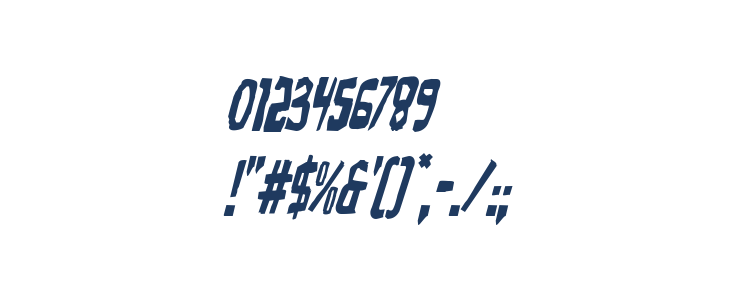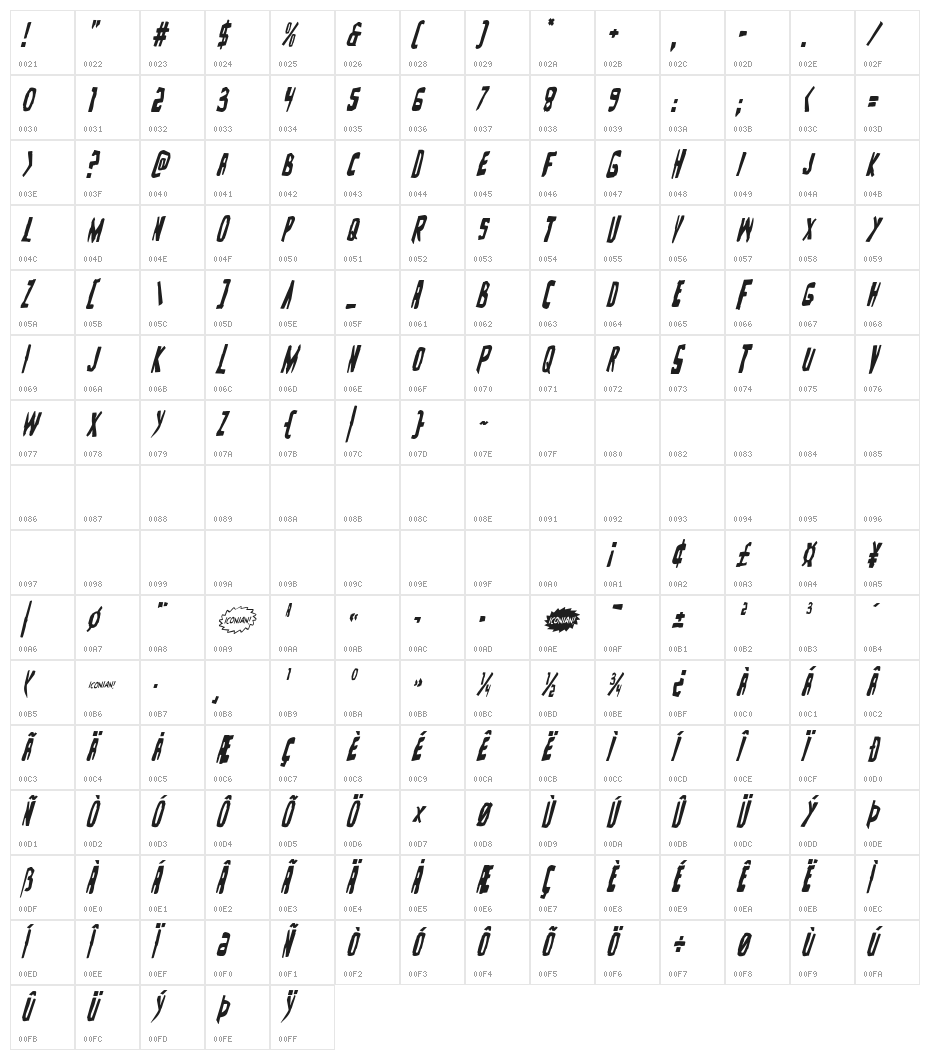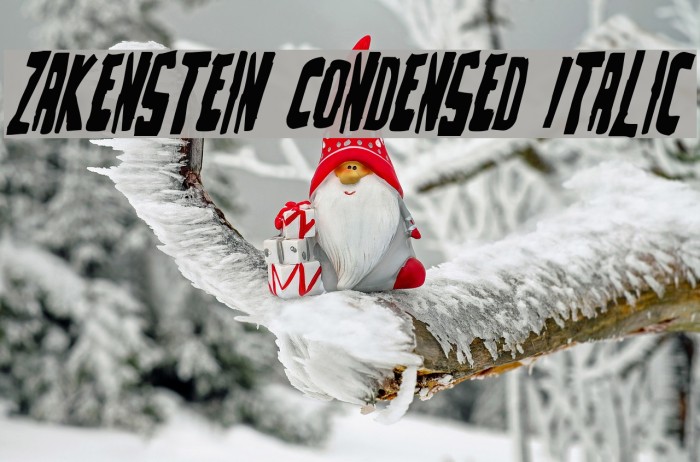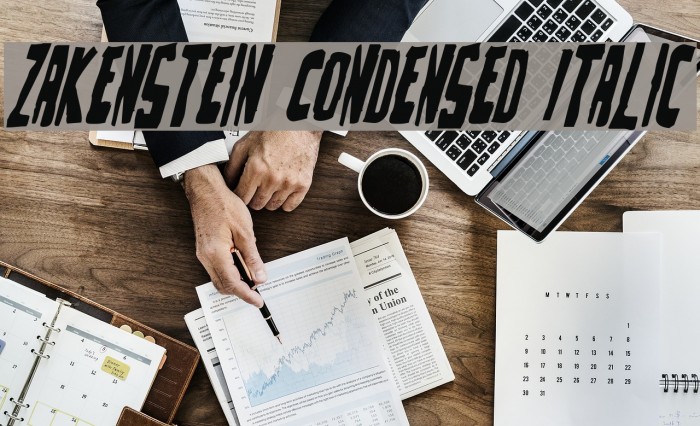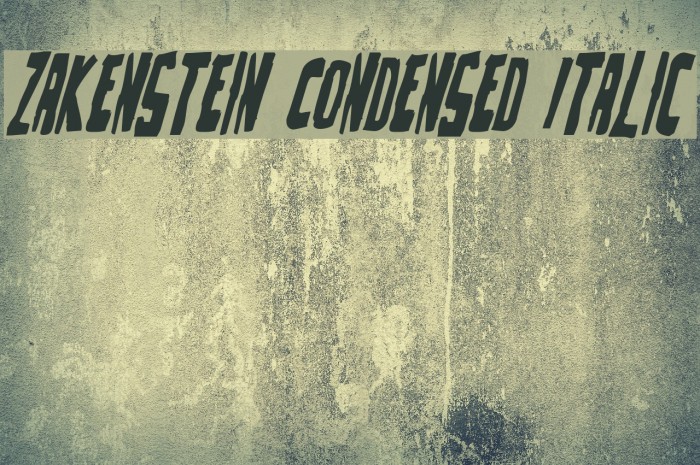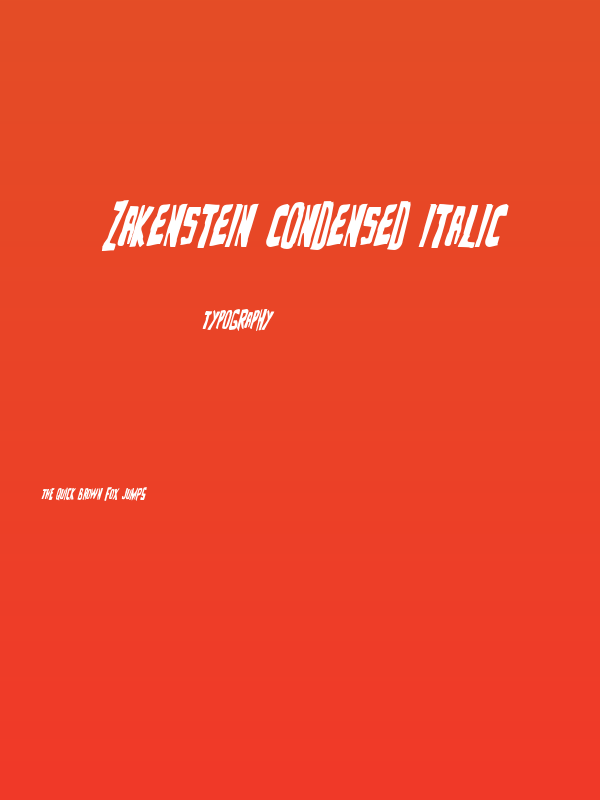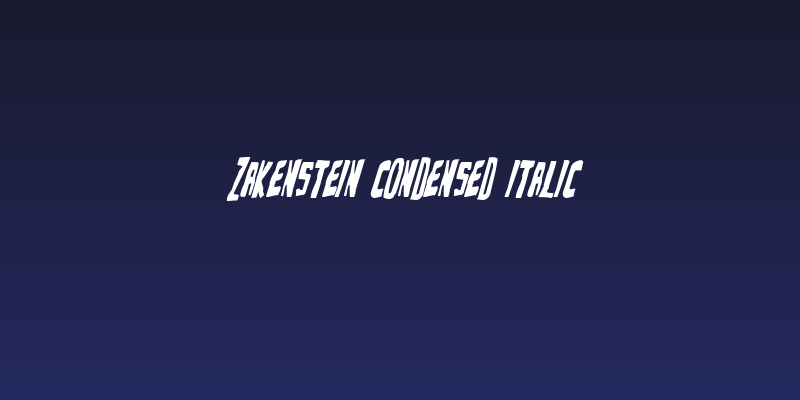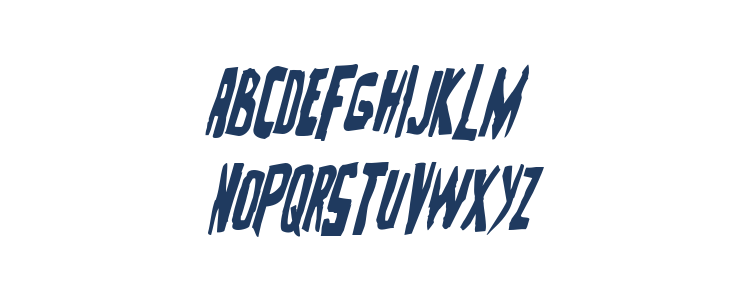
Zakenstein Condensed Italic Font
Zakenstein Condensed Italic Description
This font features a bold and dynamic style with a condensed and italicized form. The characters are sharply angled, giving a sense of movement and energy. The strokes are thick and consistent, providing a strong visual impact. The uppercase and lowercase letters maintain a cohesive design, with the uppercase being particularly prominent. Numbers and special characters are designed to match the boldness and slant of the letters, ensuring uniformity across all glyphs. This font is ideal for projects that require a striking and modern appearance.
| Proposed Projects | Perfect for posters, logos, and branding materials that need a bold and energetic look. |